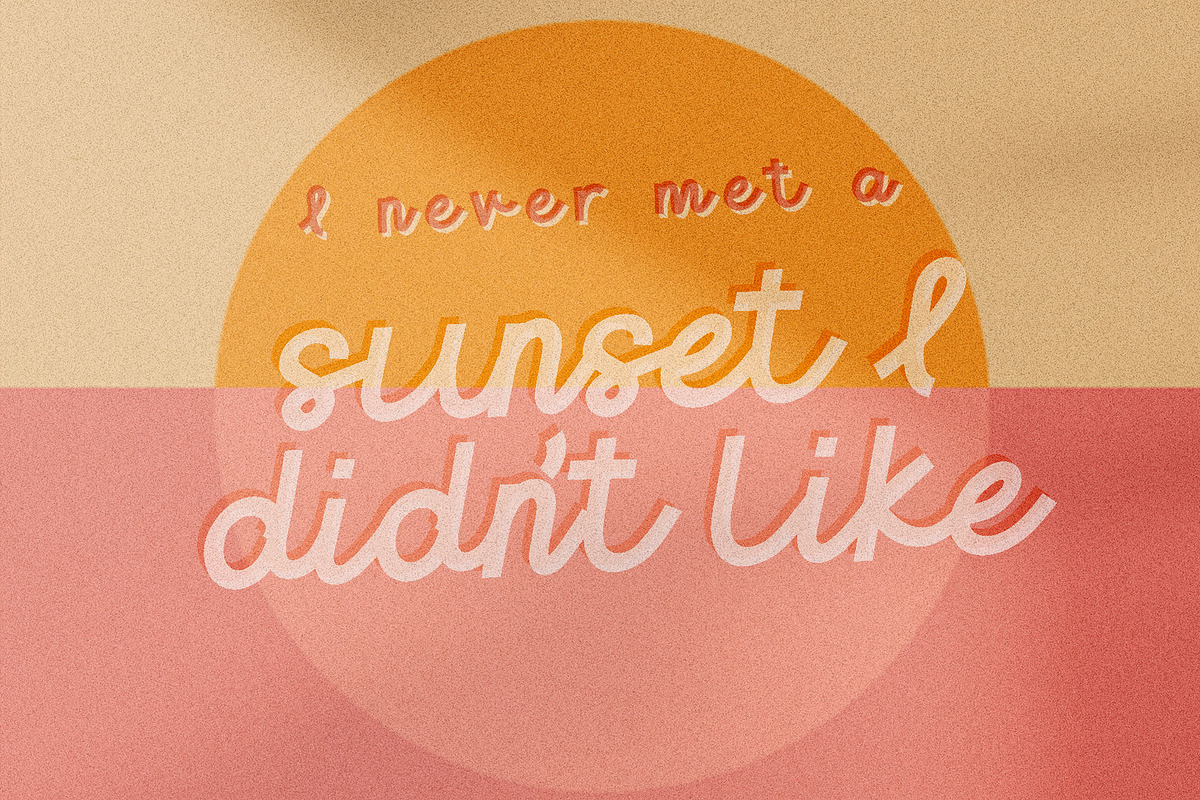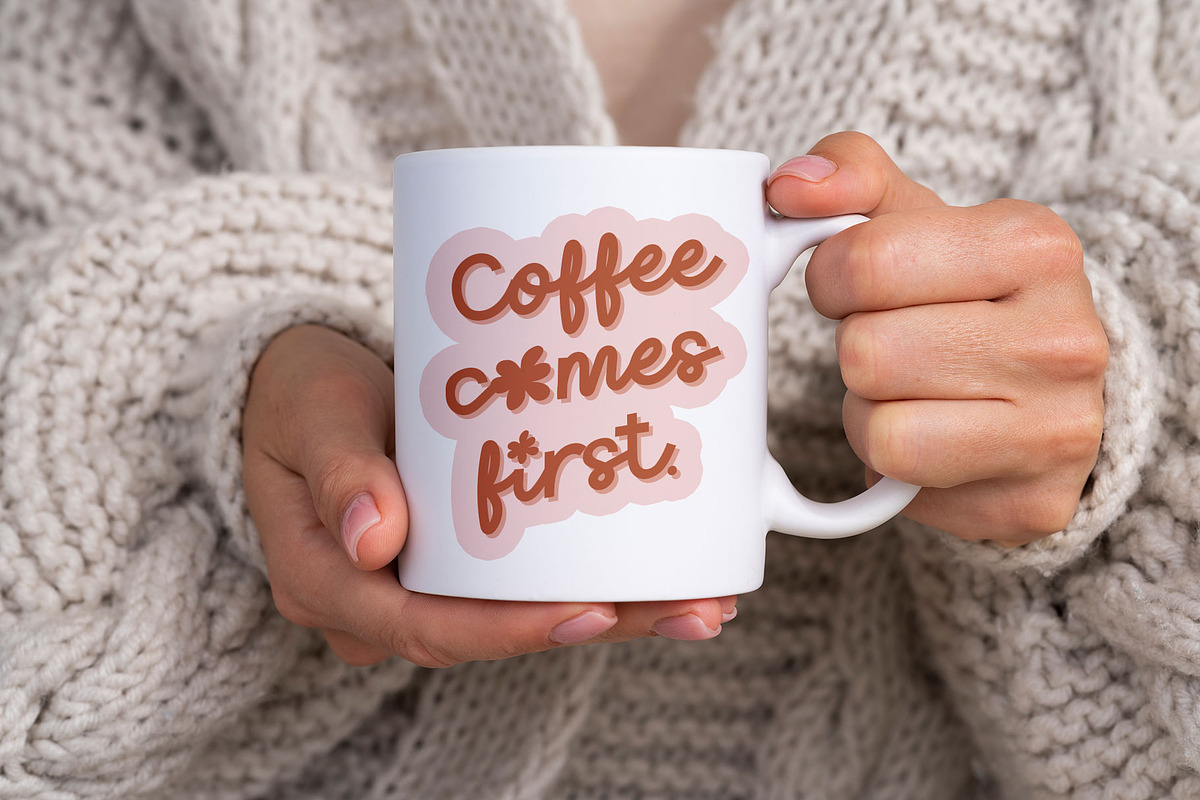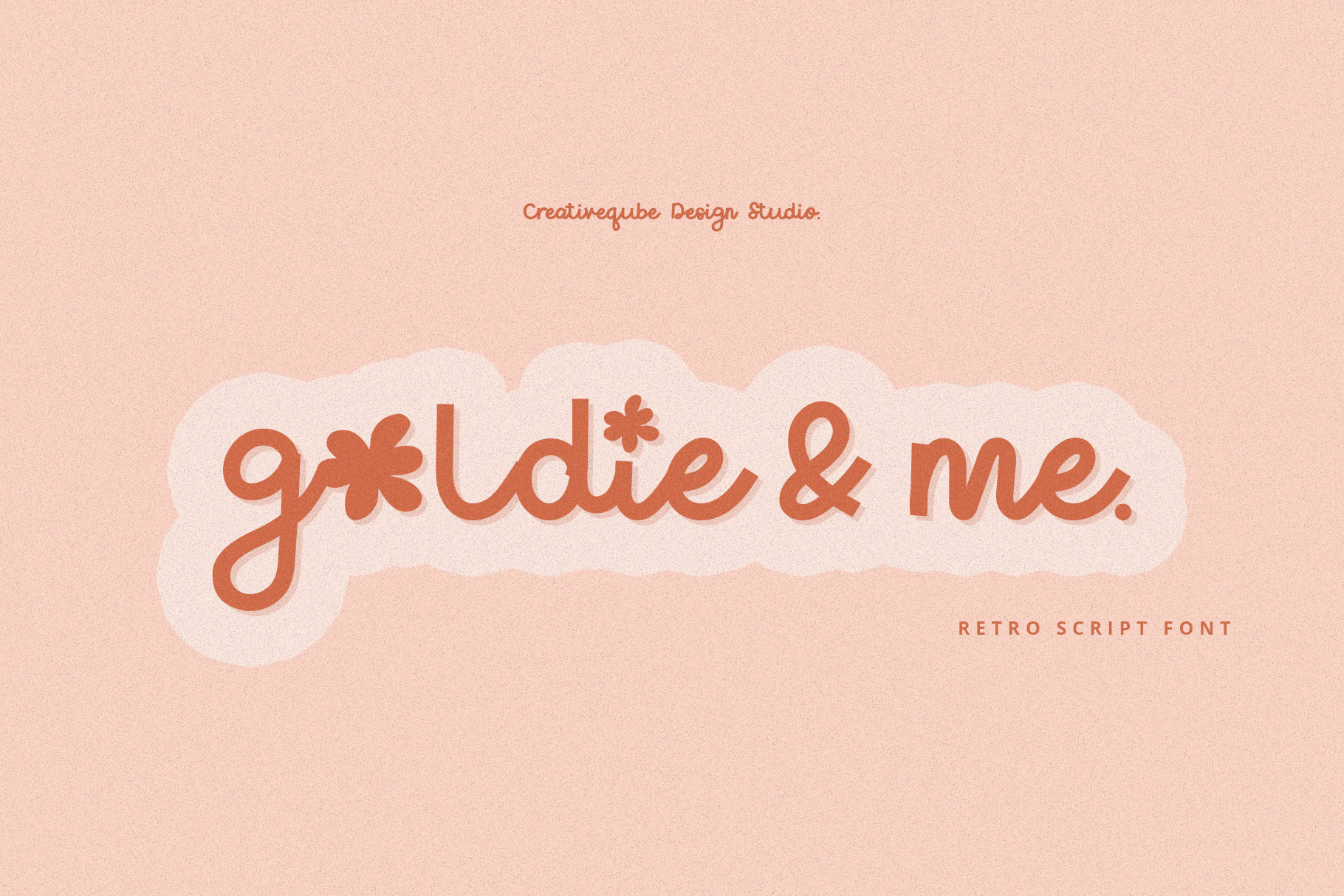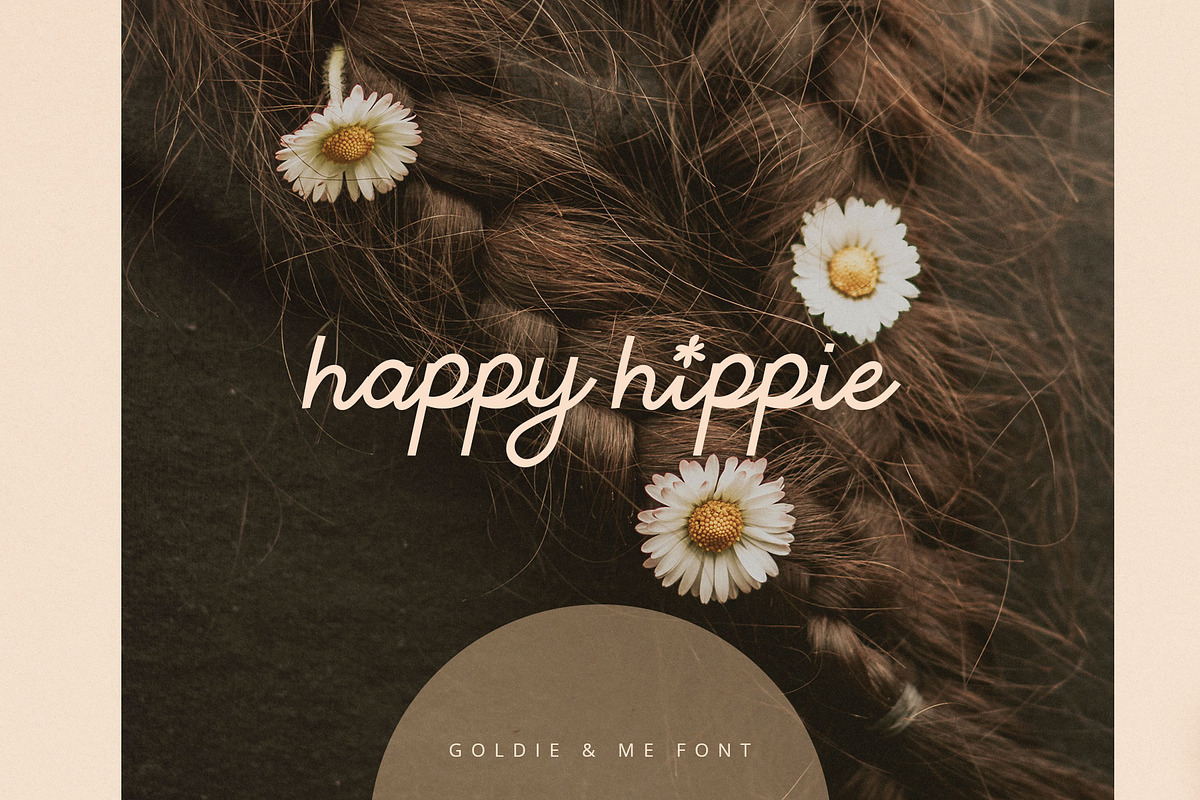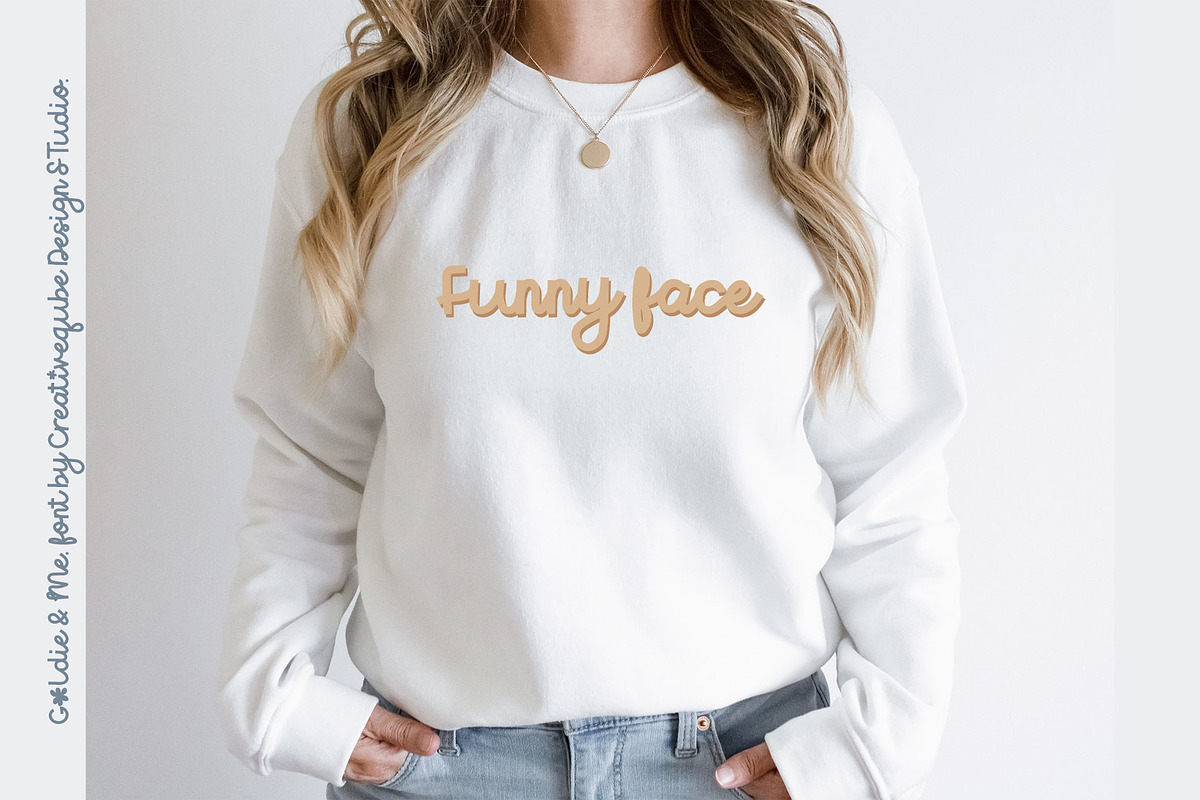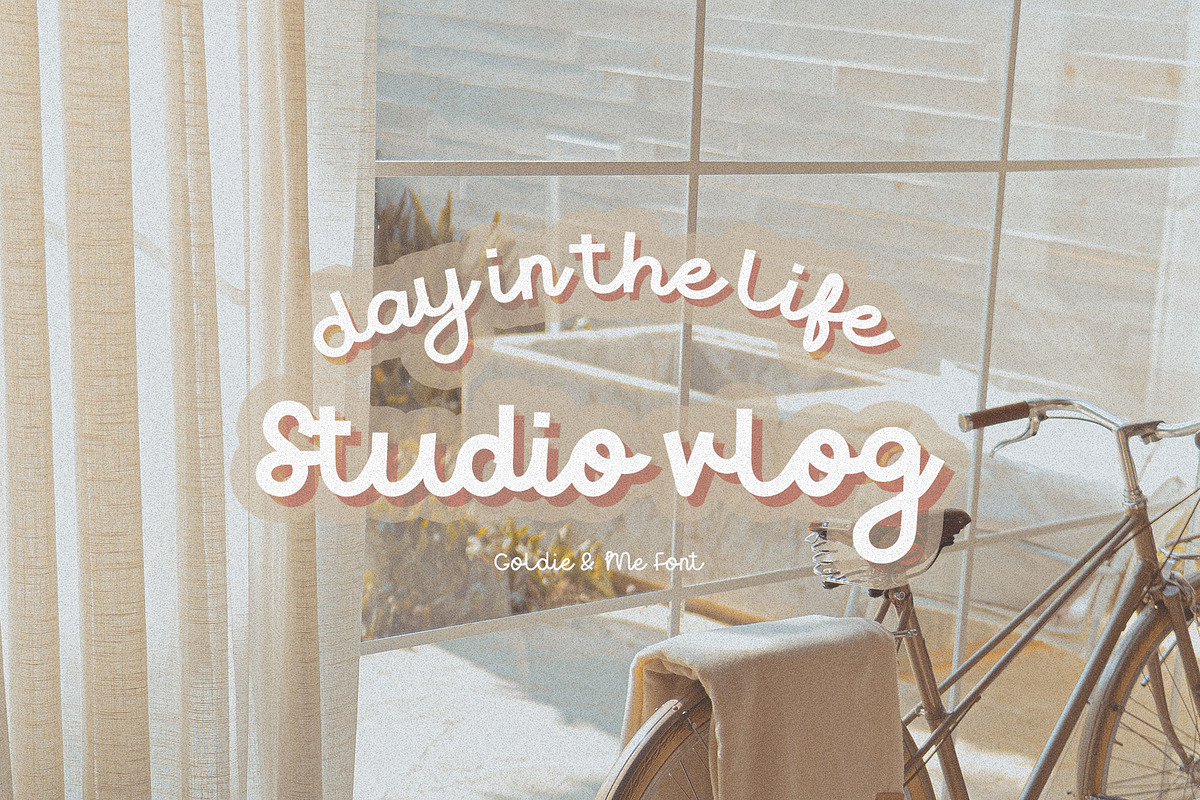
Goldie & Me Script Font
Goldie & Me. Font
A hand-drawn, fun retro block script font with flower features on some alternate letters!
Goldie & Me comes in 6 font styles, regular, light, italic, light italic, bold, bold italic. Each font includes flower ligatures for the alternate lowercase letters i and o.
Goldie & Me is perfect for t-shirts, modern designs, procreate, stickers, logos, branding, greeting cards, cricut projects, posters, advertising, social media, prints and more!